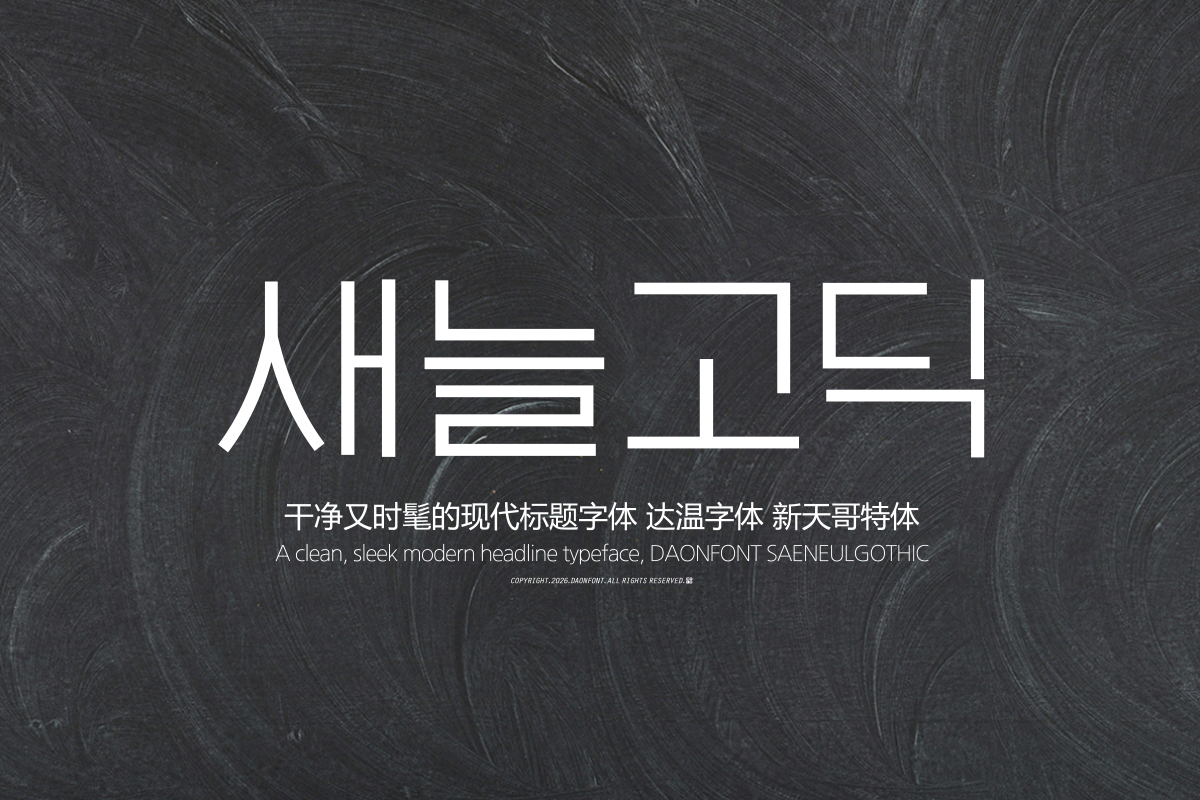
DAON SAENEULGOTHIC(M)
SAENEUL GOTHIC is a modern Gothic typeface based on thin and sophisticated strokes, conveying a clean yet stylish impression. It features an organized square structure and balanced stroke proportions, offering high readability.